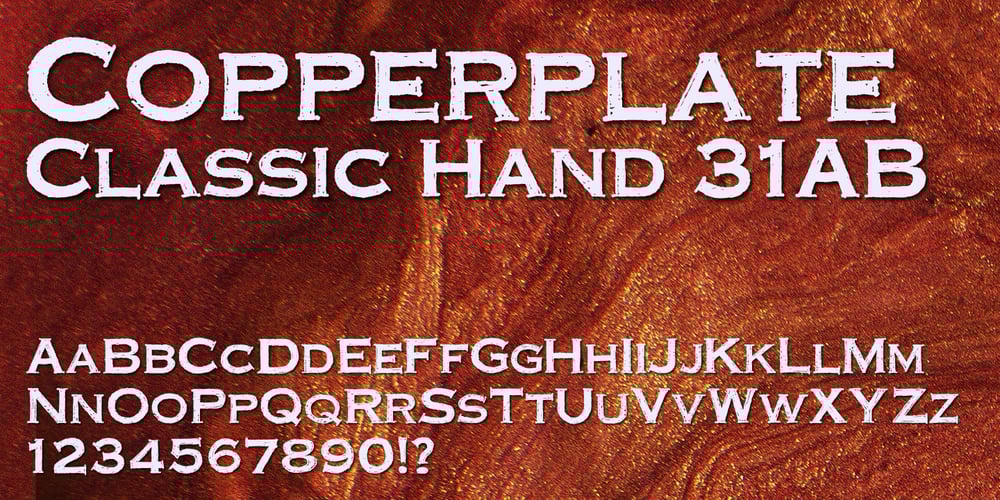
Copperplate Gothic Hand Font Family was designed by Frederic W. Goudy, Gert Wiescher and published by Wiescher Design. Copperplate Gothic Hand contains 1 styles and family package options. The classic font as designed by F. W. Goudy for ATF in 1901, now in a hand-drawn version for a little bit of variation. Everybody else just offers another version of the same old Copperplate, but I now have a new rough one. Oh, just for the record, I have a couple of other versions of this font in my collection of the Copperplate Classic fonts. Your rough designer Gert Wiescher